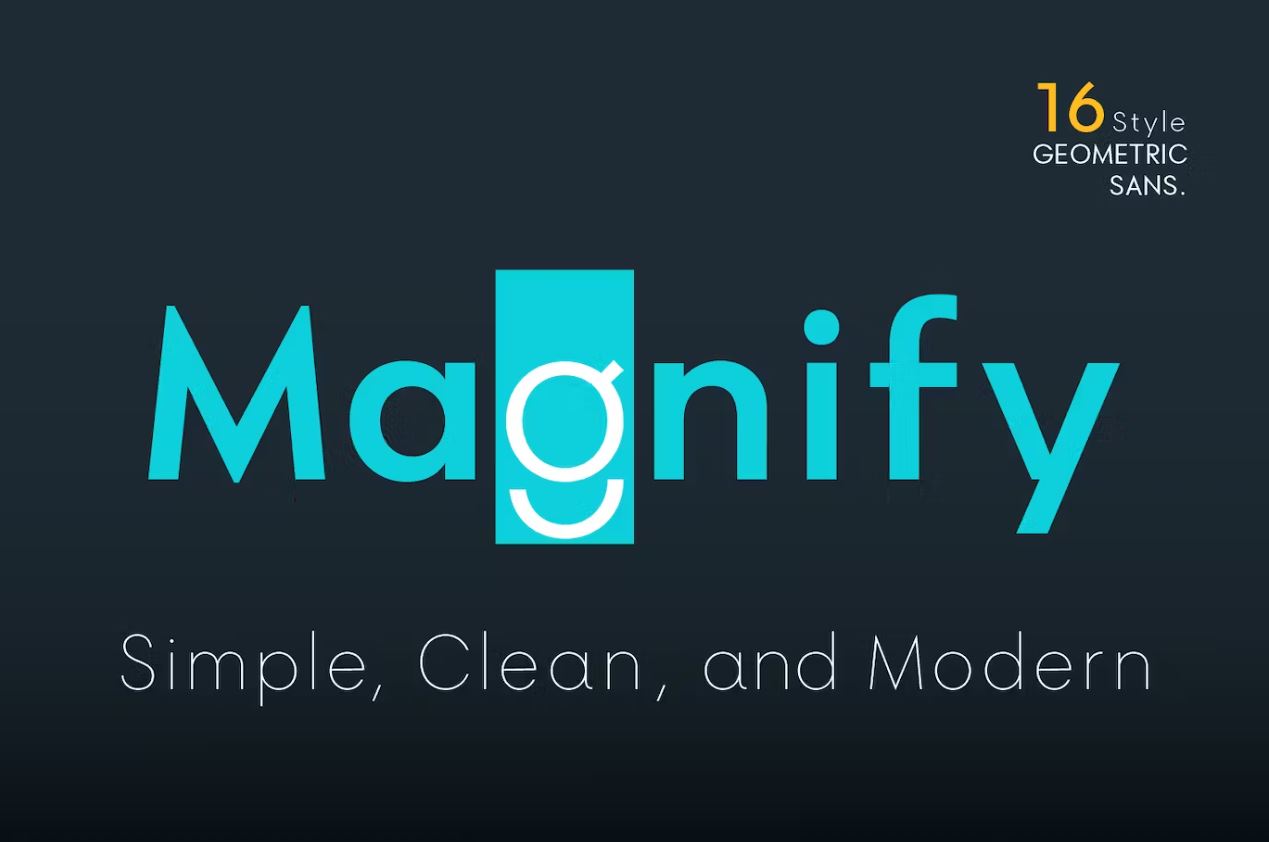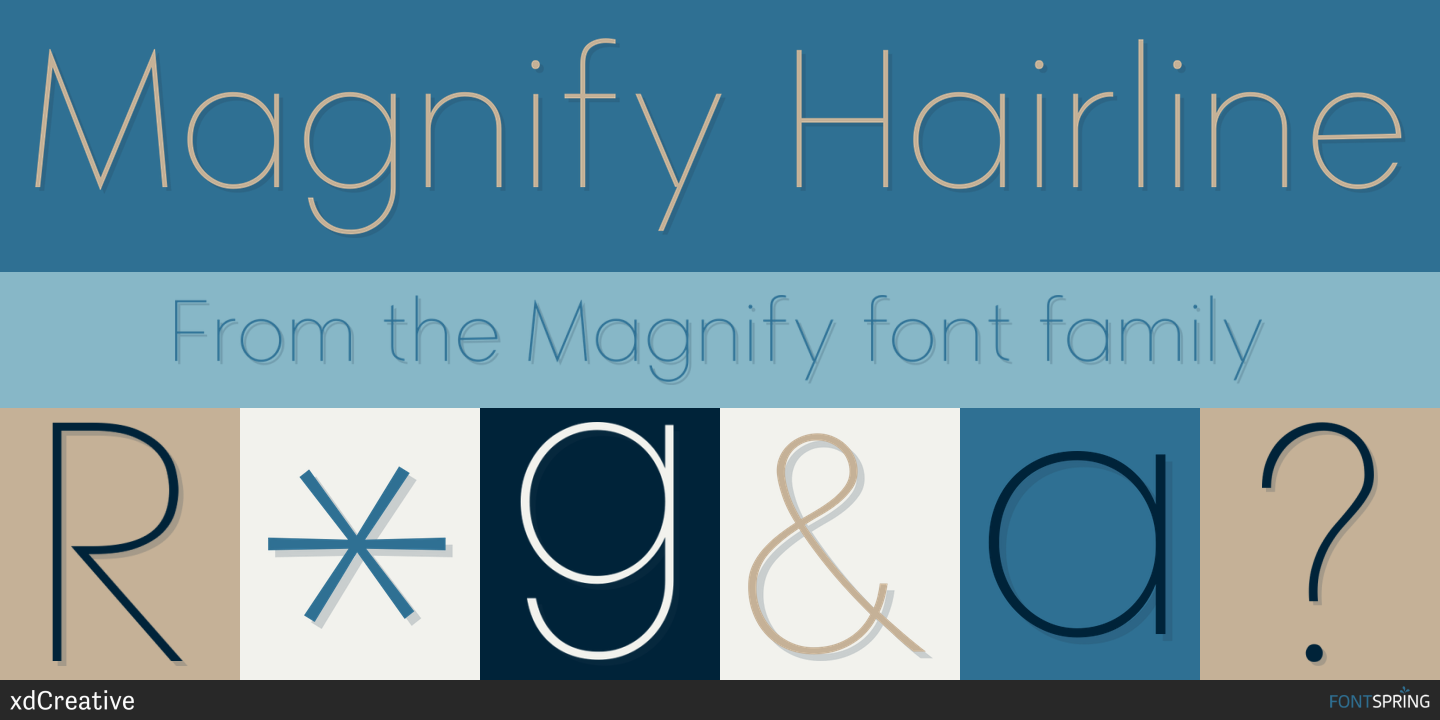
Magnify Light Font Free Download . Magnify light, font by xdcreative. Download the magnify font family for free. Magnify light can be purchased as a desktop. 100 free fonts alternatives to magnify light Free download magnify font family. Geometric sans serif is one of my favorite fonts because it’s so, simple, clean and modern, and a long time i’ve been dreaming of making this type, inspired by. Magnify extra light by magnify designed by @faldykudo published by.xdcreative a modern,. This magnify font family is a premium resource shared for free on textfonts. Magnify also has special alternate characters in letters a, g, y and o. What fonts are similar to magnify light? This font features clean, geometric lines. Download magnify extra light font. Magnify font about this font family geometric sans serif is one of my favorite fonts because it’s so, simple, clean, and modern, and a long.
Geometric sans serif is one of my favorite fonts because it’s so, simple, clean and modern, and a long time i’ve been dreaming of making this type, inspired by. Magnify extra light by magnify designed by @faldykudo published by.xdcreative a modern,. Magnify also has special alternate characters in letters a, g, y and o. This font features clean, geometric lines. Magnify light can be purchased as a desktop. Download magnify extra light font. Free download magnify font family. Magnify light, font by xdcreative. Download the magnify font family for free. Magnify font about this font family geometric sans serif is one of my favorite fonts because it’s so, simple, clean, and modern, and a long.